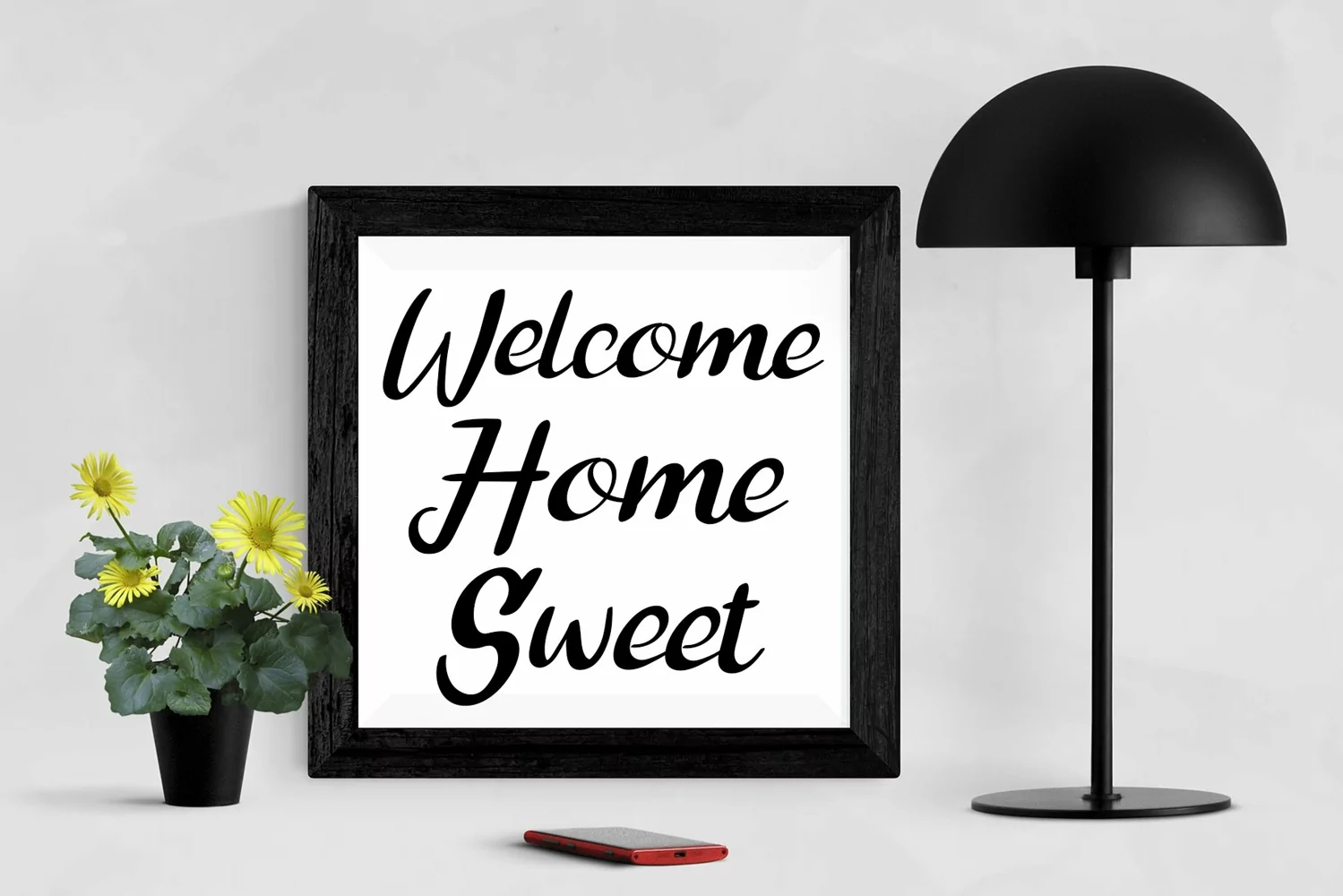
Mockup Room
Introducing, this is our newest product, we call this product Mockup Room,
It looks amazing with sweet touches and beautiful curves in each letter. Mockup Room fonts are perfect for: wedding invitations, fashion magazines, logos, signatures, photography, watermarks, wall displays, social media,